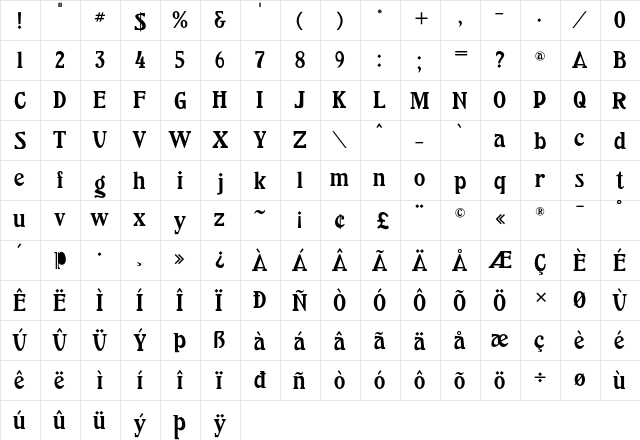
Pettingill CF Bold
| Foundry | Chuck's Fonts |
| Designer | Chuck Mountain |
Design Context for Pettingill CF Typeface
Pettingill CF takes a measured approach to typography — its balanced proportions and neutral character make it a reliable workhorse for both digital and print work. Its bold stroke weight gives it real presence on the page.